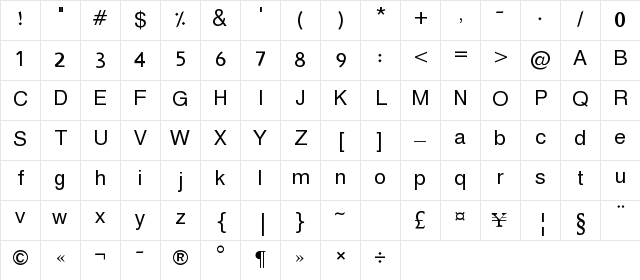
Complete Hacen Promoter Broadcast Regular glyph index. Displaying only characters natively supported by Hacen Promoter Broadcast Regular font.
Hacen Promoter Broadcast is a composed and adaptable typeface that performs quietly and consistently across a wide range of design contexts.